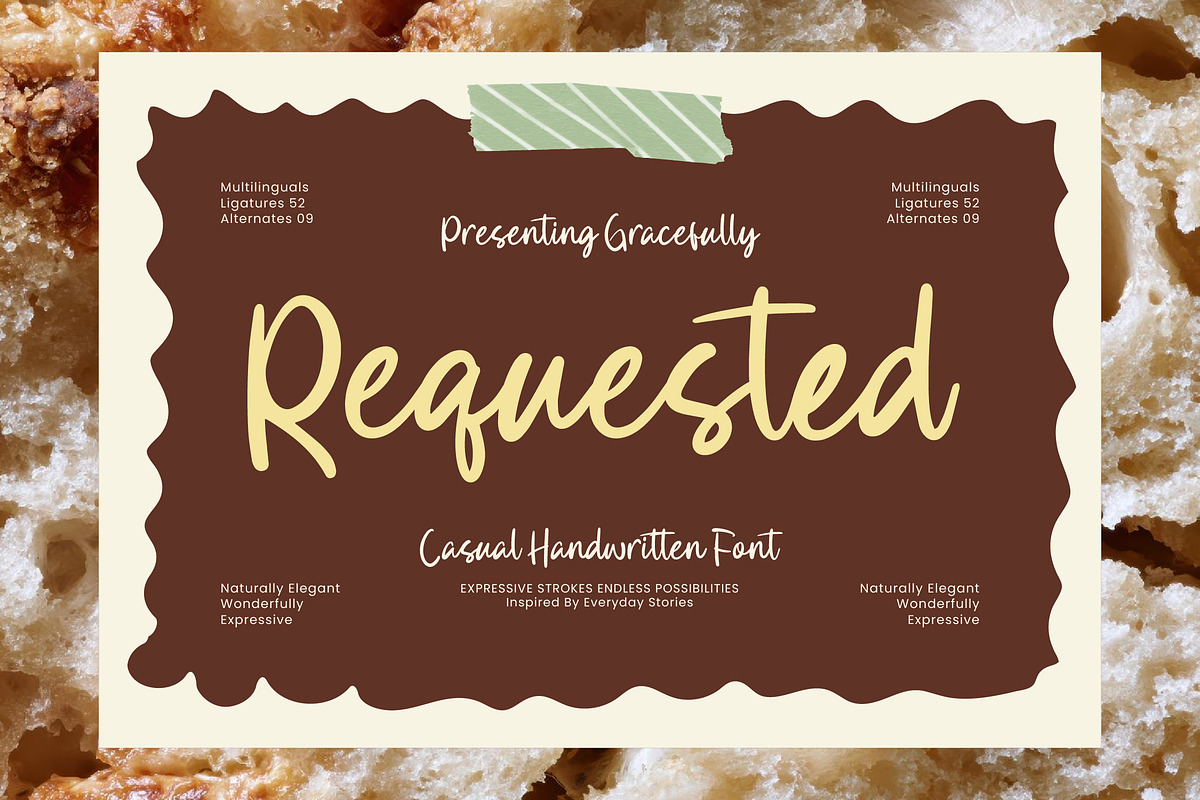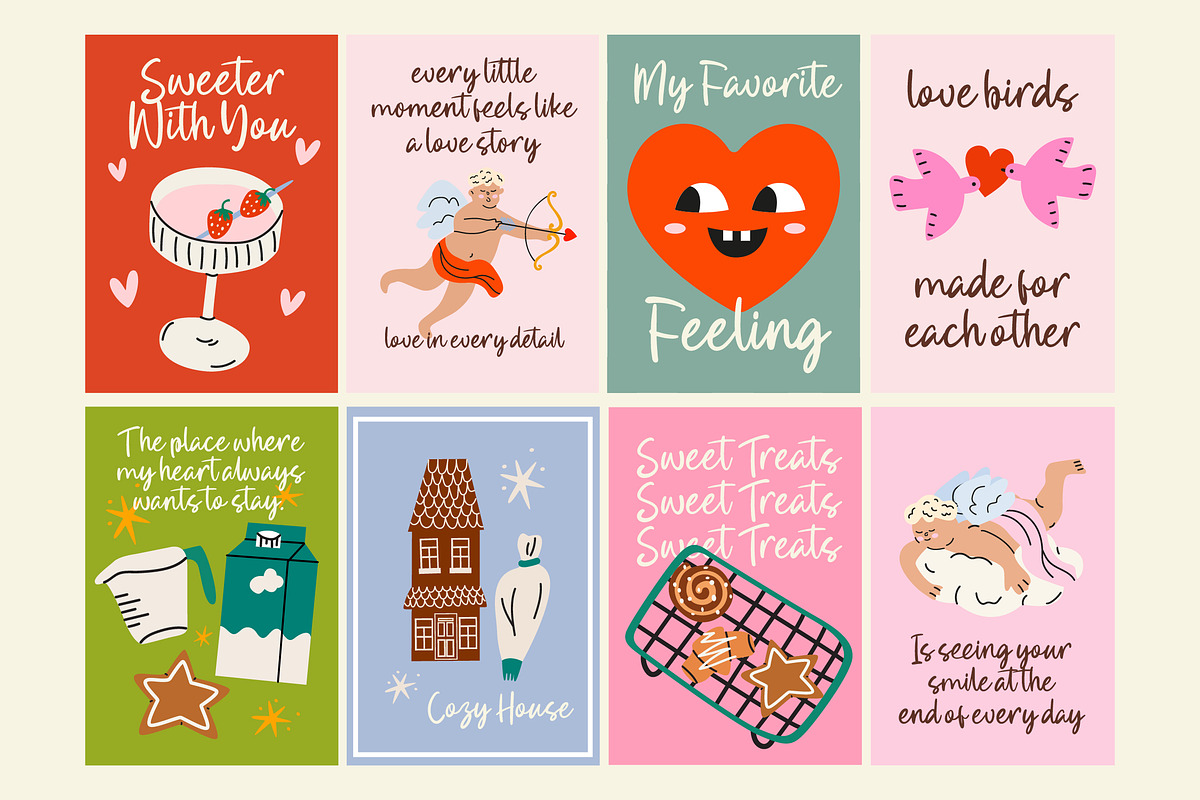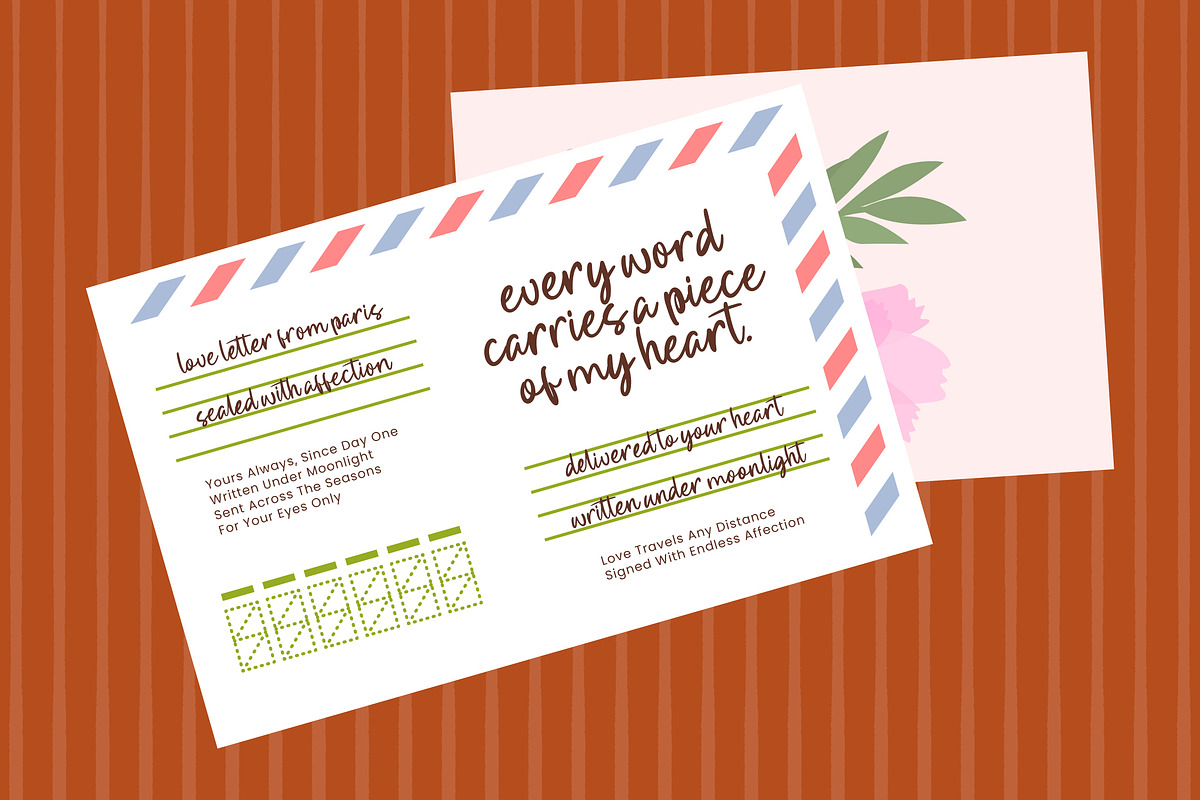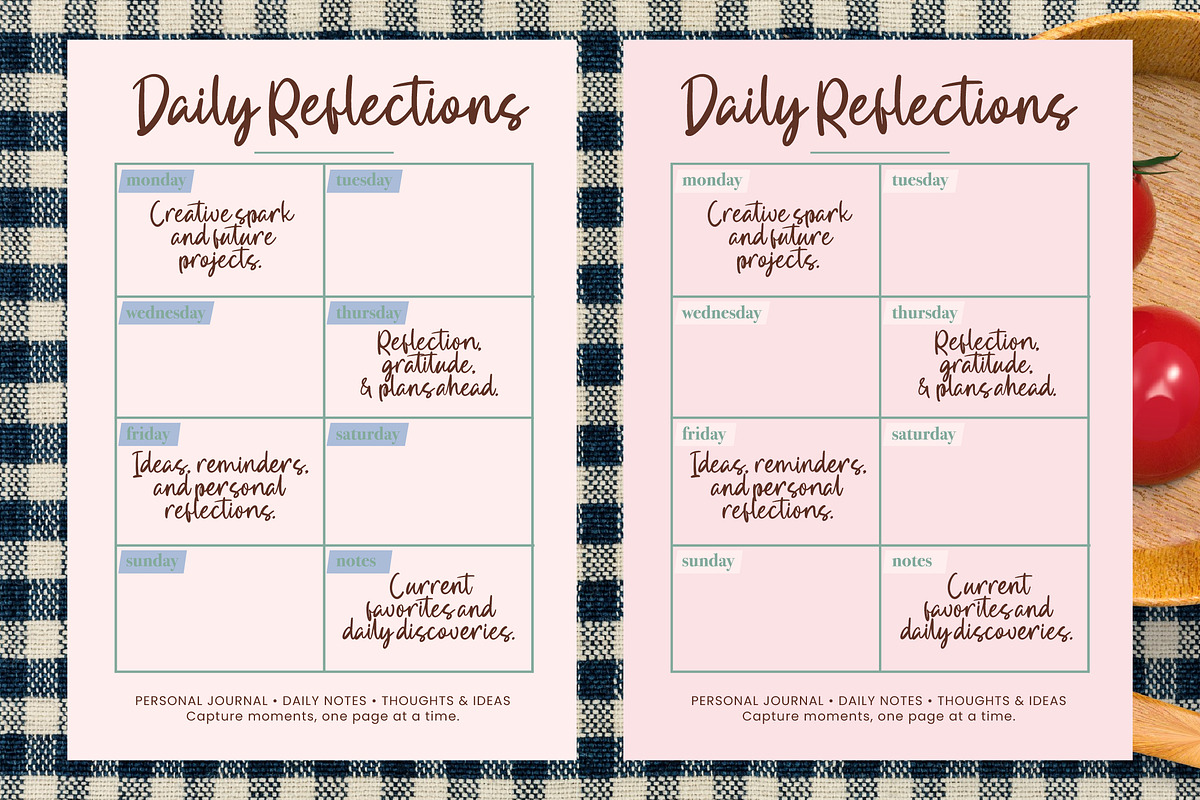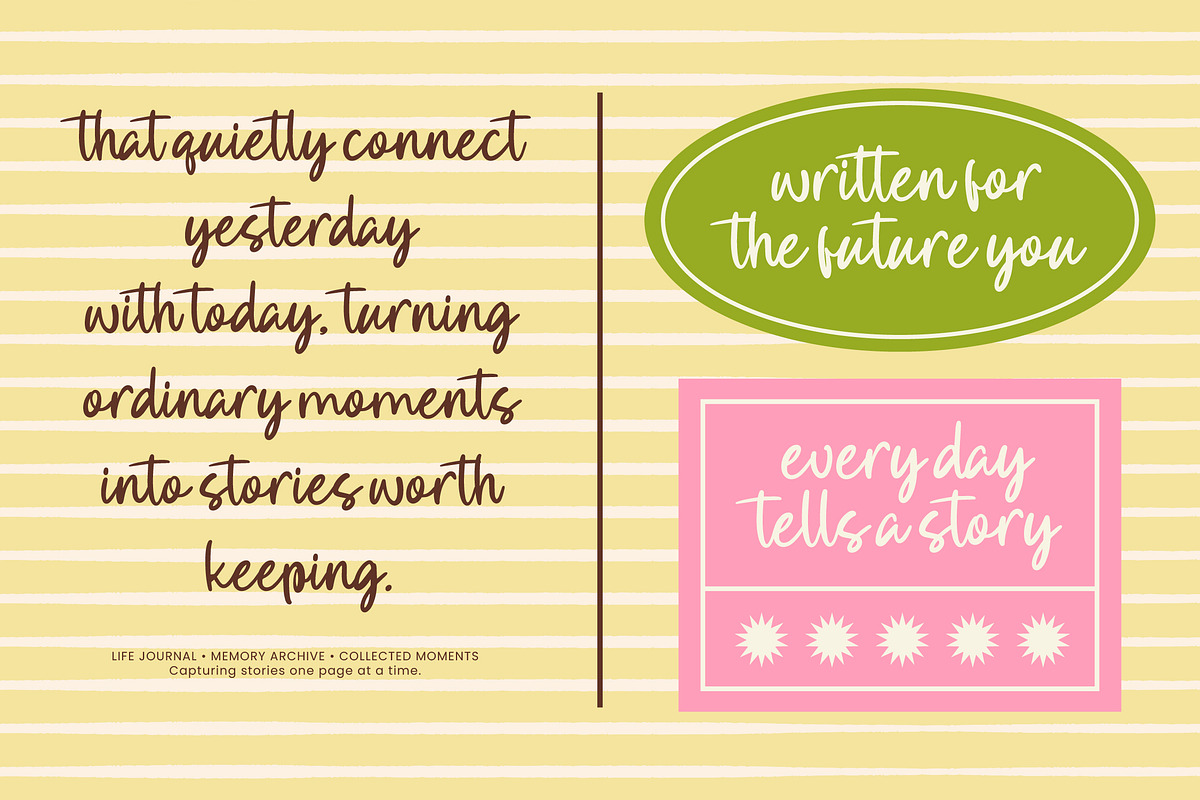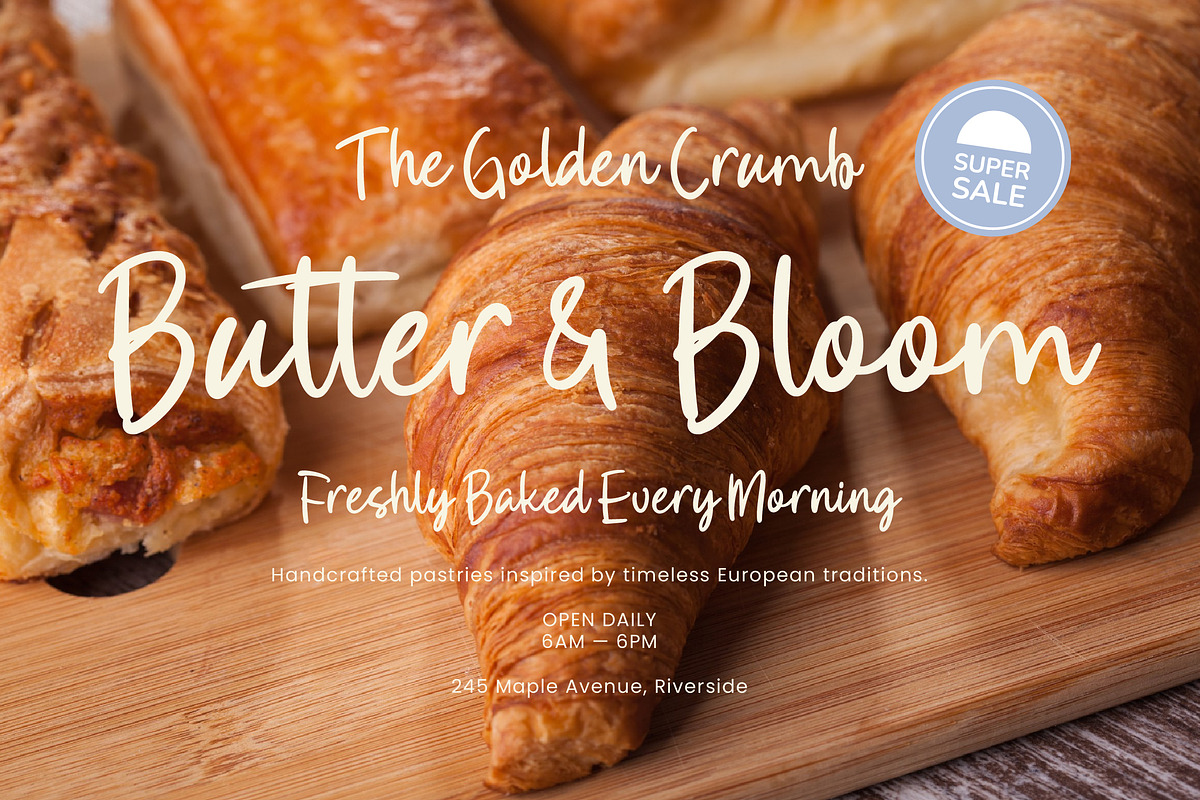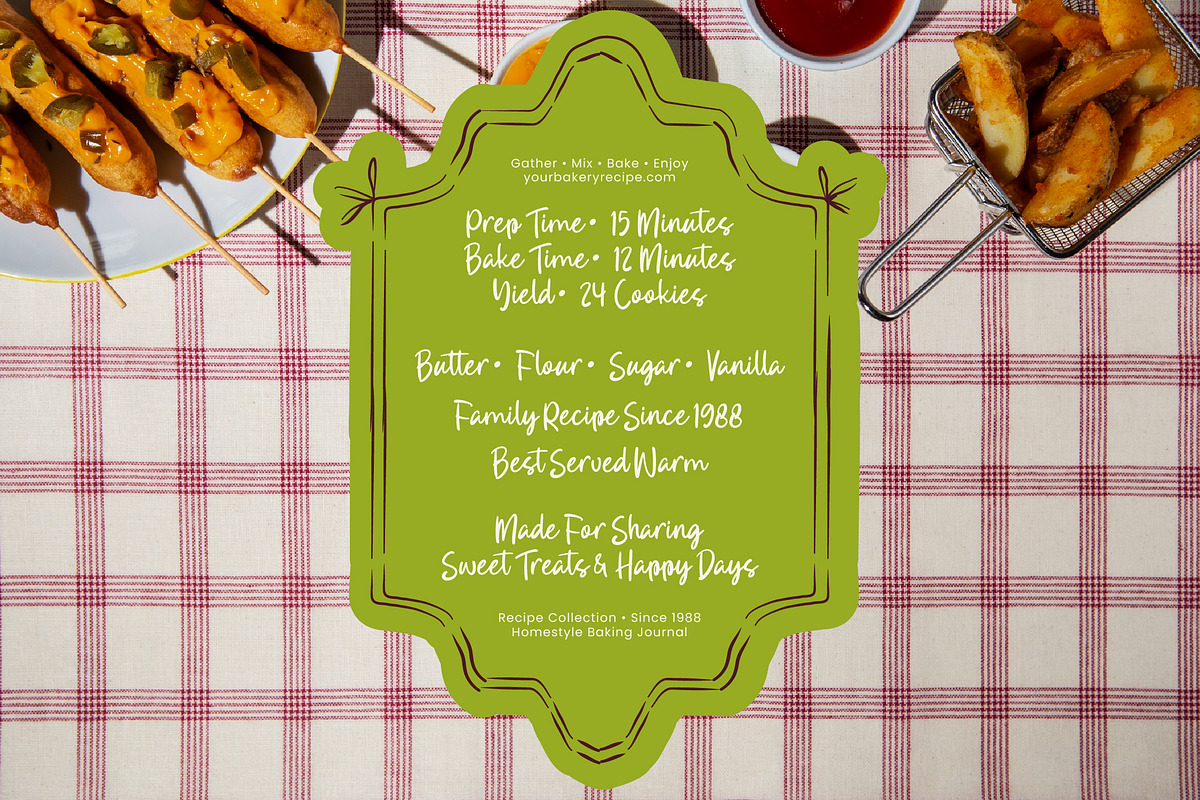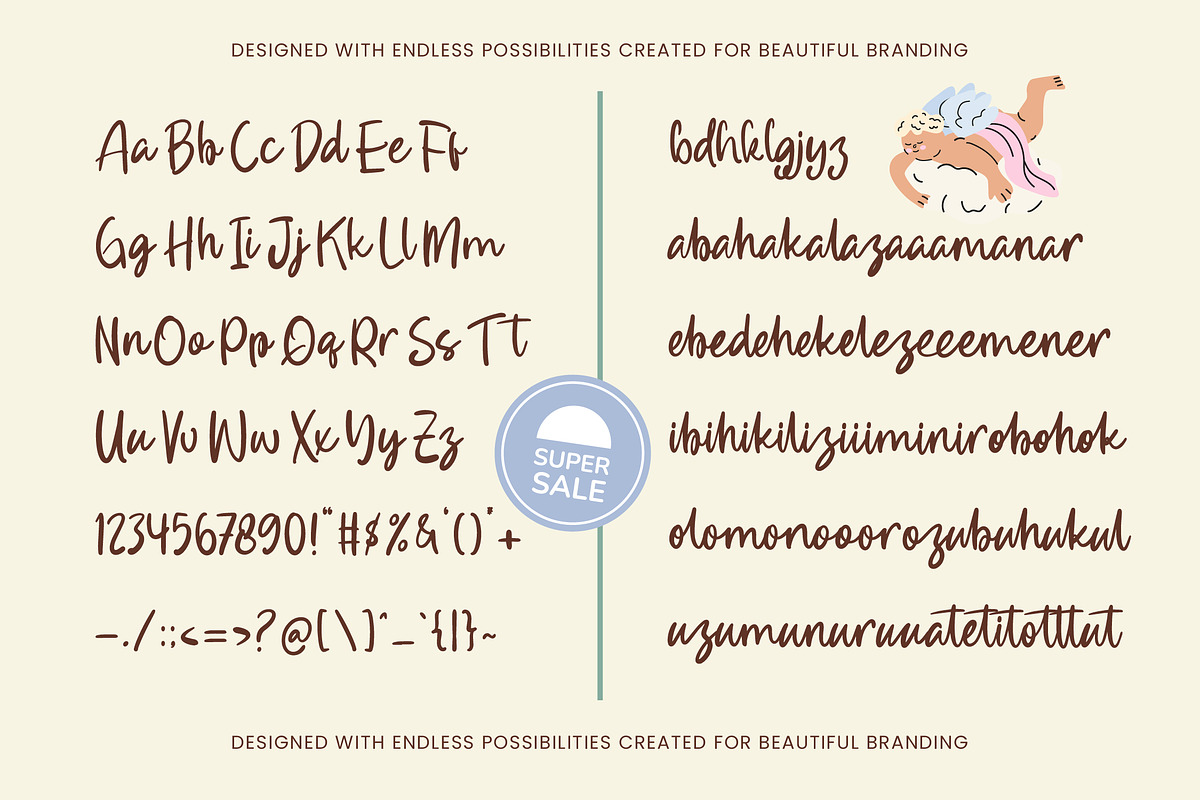
Requested Casual Handwritten
Requested is a casual handwritten font designed to capture the warmth and authenticity of everyday handwriting. Inspired by journals, planners, handwritten notes, recipe cards, and personal correspondence, it delivers a natural and approachable personality that feels genuinely human.
With relaxed strokes, playful movement, and organic letterforms, Requested creates typography that feels personal without sacrificing readability. Its handcrafted appearance makes it ideal for projects that require warmth, creativity, and a friendly visual voice.
Perfect for stationery, journals, planners, invitations, packaging, bakery branding, greeting cards, social media content, lifestyle products, and creative editorial projects.
🔡 OpenType Features: 52 Ligatures & 9 Alternates
Requested is created for designers who want a casual handwritten font that feels personal, warm, and naturally expressive—perfect for stationery, branding, packaging, journals, planners, and creative storytelling.